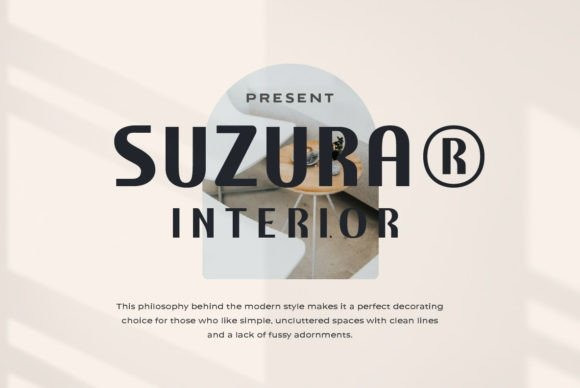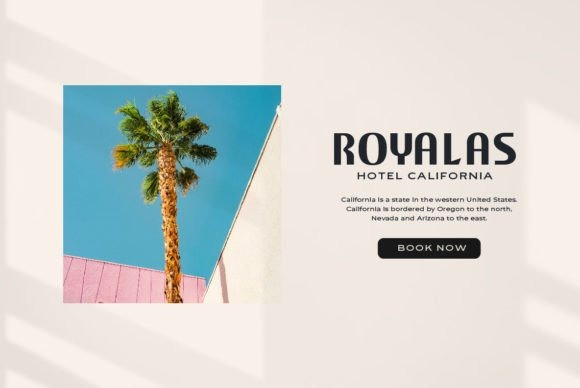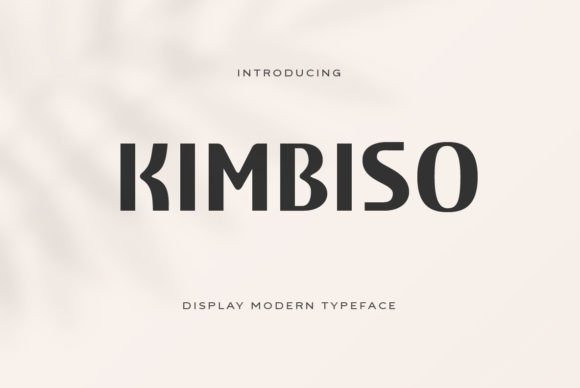
Kimbiso Font
Kimbiso Sans Serif Font is modern and cool sans serif font featuring the right amount of trendiness. No matter the topic, this font will be an incredible asset to your fonts’ library, as it has the potential to elevate any creation.